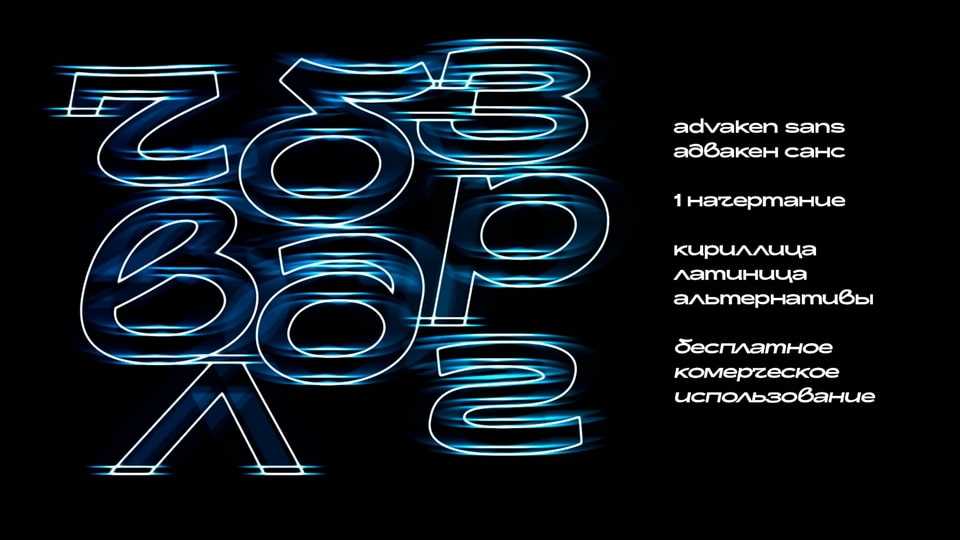
Download Advaken Sans font, a sans-serif typeface that embodies the sleekness and energy of modern digital aesthetics with its bold, smooth lines and dynamic curves.
Designer: Wladyslaw Borisov